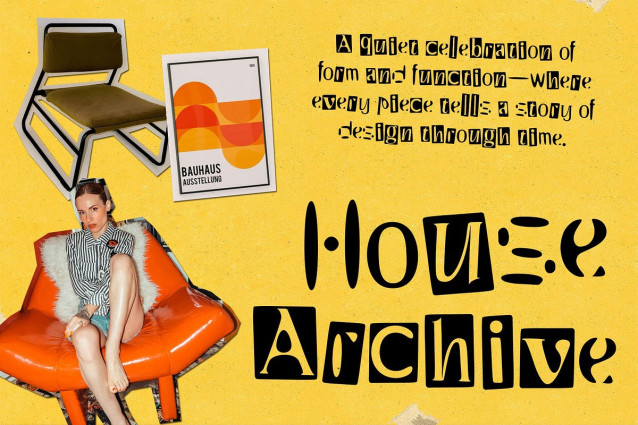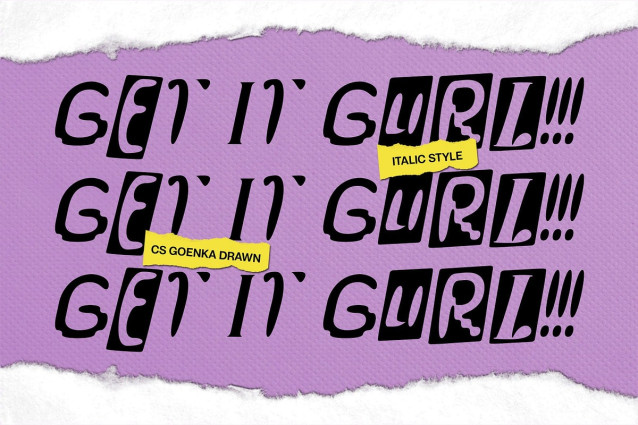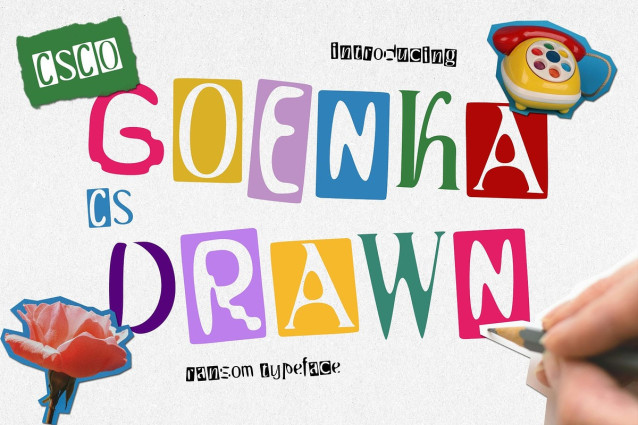
CS Goenka Drawn Font
CS Goenka Drawn Font is a bold display font built on the visual language of ransom notes and paper collages. Each letterform is constructed from mismatched cut-out shapes, reminiscent of clippings from old magazines and newspapers. This irregular composition gives it an unmistakable handmade look that feels raw, spontaneous, and bursting with energy.
Layered with Drawn Effect for a Handcrafted Feel The font is layered with a unique drawn effect, adding scribbled lines, rough edges, and ink-like textures that mimic the look of hand-rendered letters. This detail enhances the font’s quirky, expressive nature, giving each glyph a sense of individuality and movement—perfect for designs that want to feel personal and freeform.
Irregular, Chaotic, and Proudly Anti-Mainstream With its deliberately chaotic construction and wild mix of shapes, this experimental and characterful font embraces nonconformity. Its unpredictable forms and vibrant energy reflect a rebellious, anti-mainstream attitude that challenges clean, conventional design norms. This font doesn’t follow the rules—it rewrites them.
Ideal for Bold Visual Statements and Experimental Projects With its layered, handmade aesthetic and vibrant personality, this eccentric and expressive font lets you inject your design with attitude, movement, and creative defiance. It’s not just a font—it’s a graphic voice for the unconventional, the daring, and the unapologetically creative.